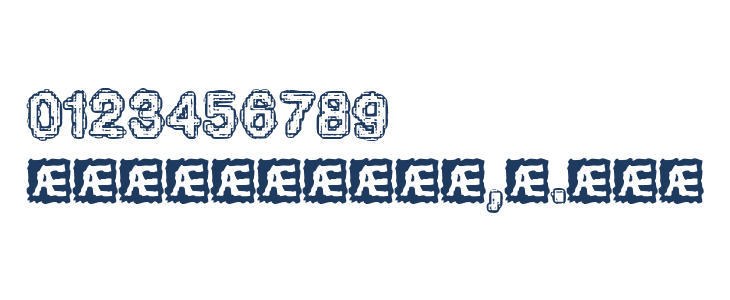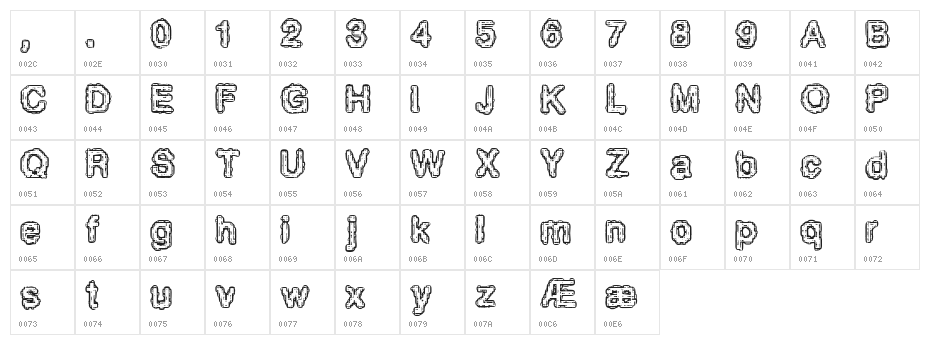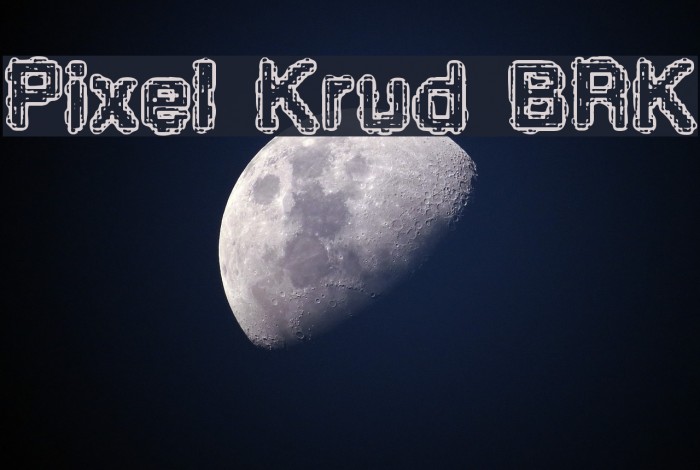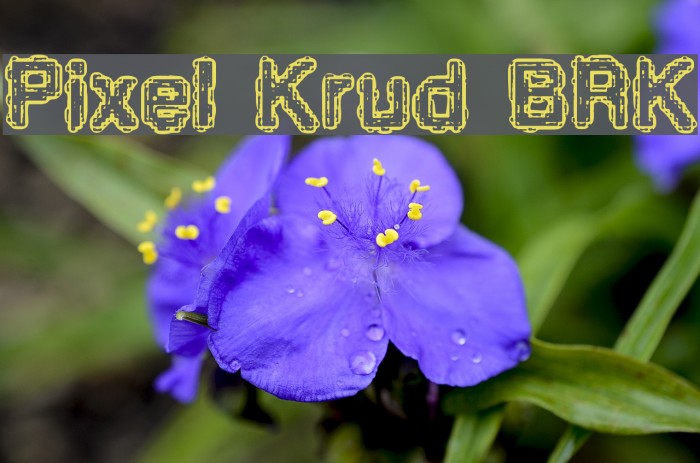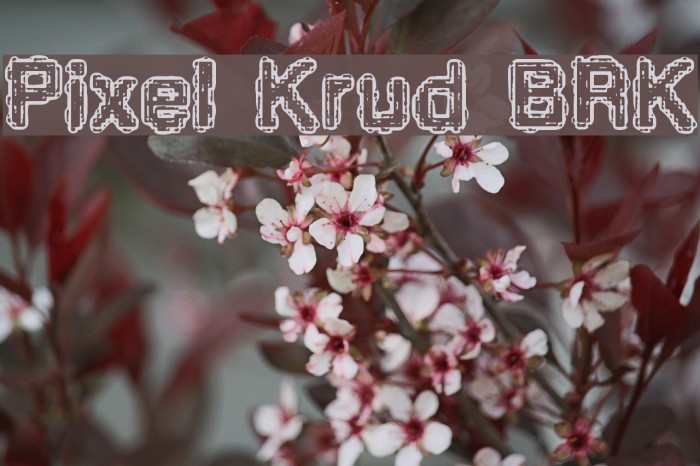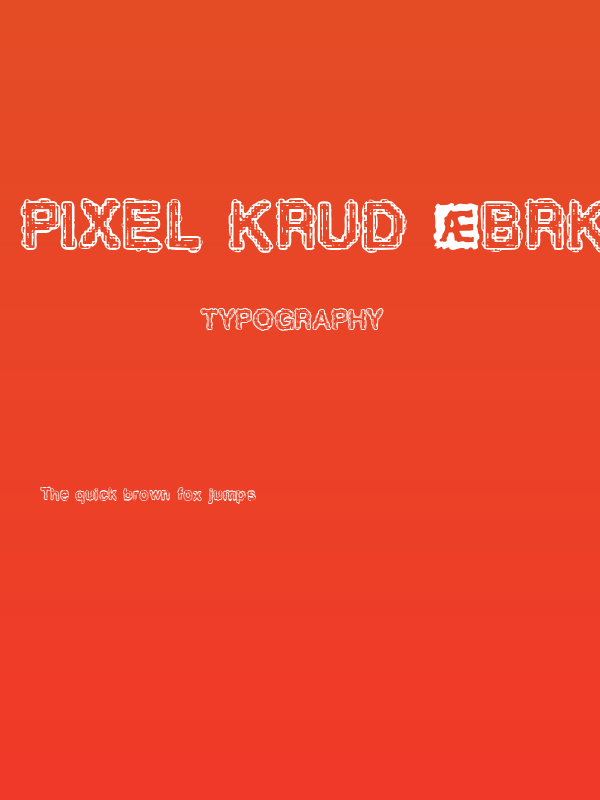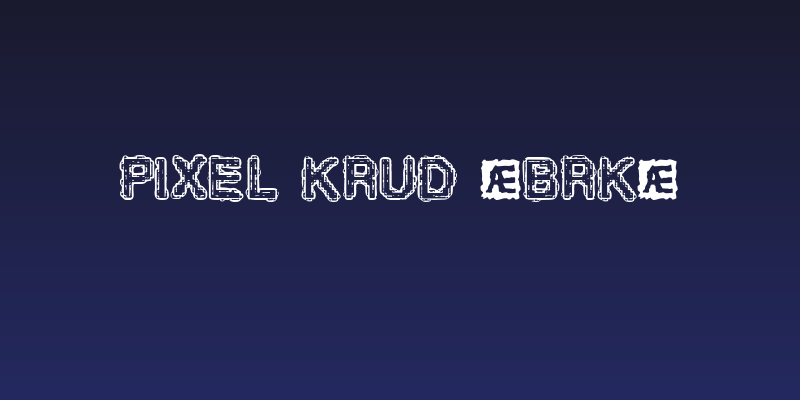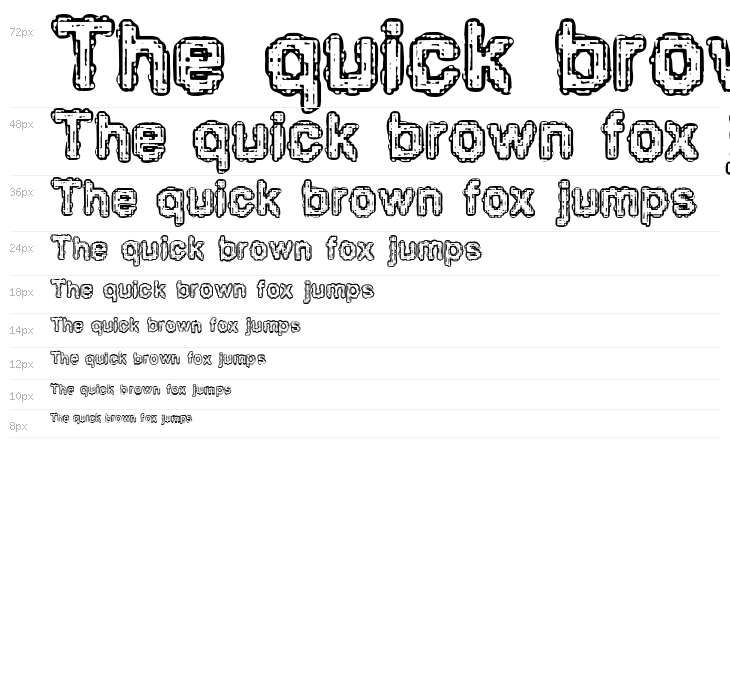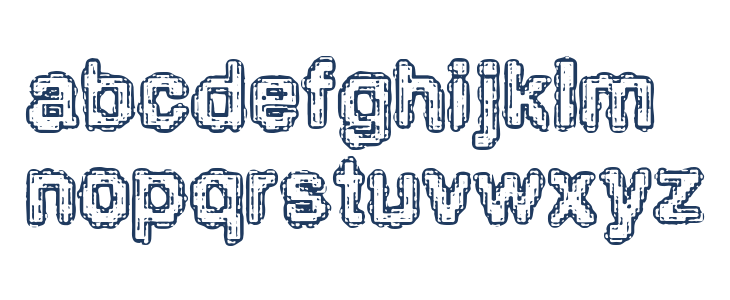
Pixel Krud [BRK] Font
Pixel Krud [BRK] Description
This font features a bold, pixelated style with a rough, hand-drawn appearance. Each character is outlined with a thick, uneven border that gives it a rugged, digital look. The letters are uppercase and lowercase, with numerals and a selection of special characters. The design is reminiscent of retro video game graphics, offering a nostalgic feel. The characters are evenly spaced, with a consistent width, making it suitable for display purposes where a unique and eye-catching style is desired.
| Overall Style | Retro, Digital |
| Proposed Projects | Ideal for retro-themed designs, video game graphics, posters, and creative digital art projects. |